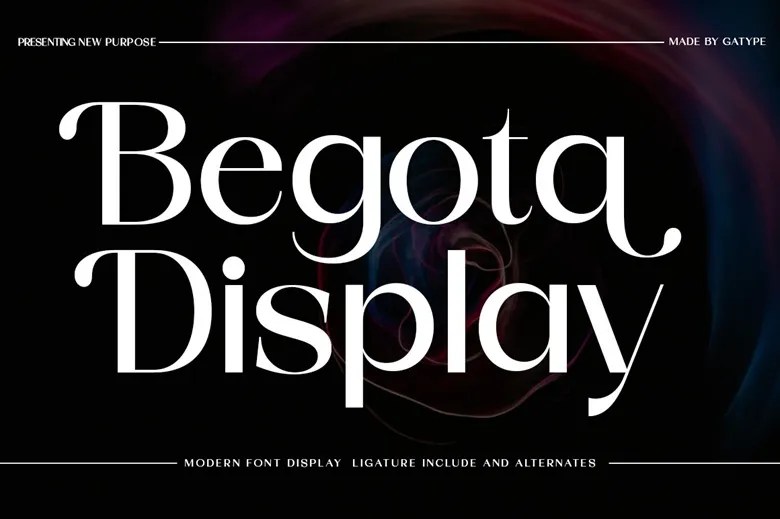
Begota Display Font
Begota Display is a contemporary serif font crafted with creativity and a bold, balanced aesthetic. Its pentagonal design and natural serif style lend an air of sophistication and elegance, making it ideal for fashion-forward branding and luxury-themed projects. Featuring upper letters, numbers, and both standard and irregular punctuation forms, it offers versatility in design.
Perfect for high-end invitations, logos, photography, product packaging, labels, and social media posts, Begota Display enhances any design with a bold and luxurious feel. Whether you’re creating wedding stationery, special event invites, or product branding, this font brings an elegant and modern touch.